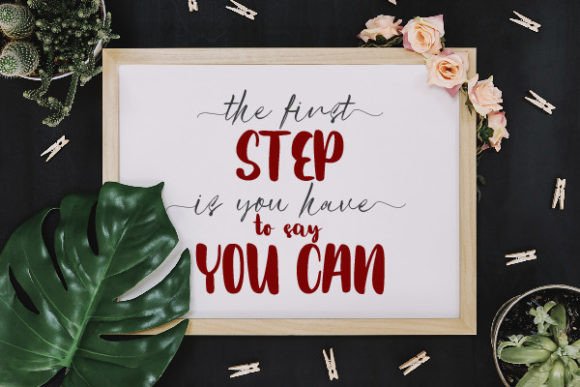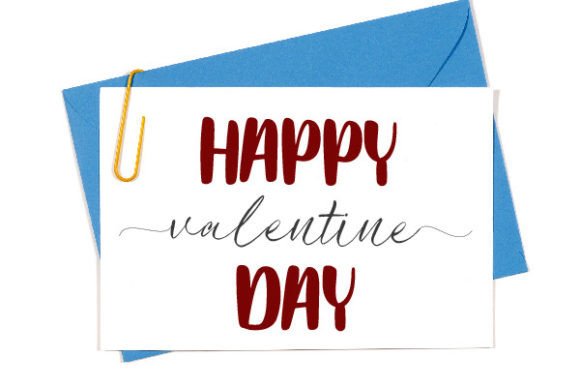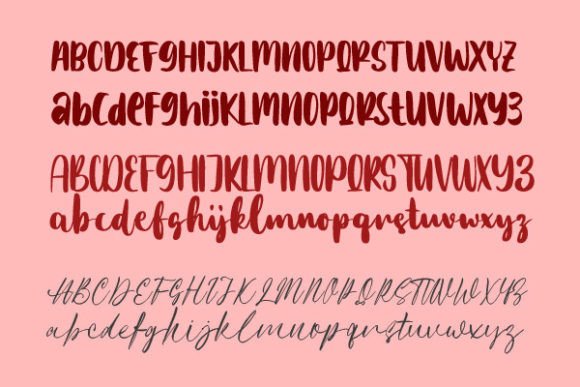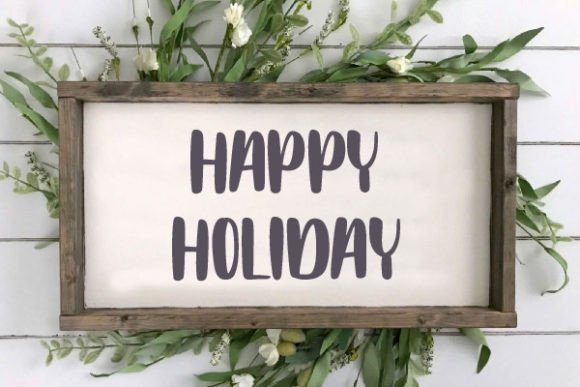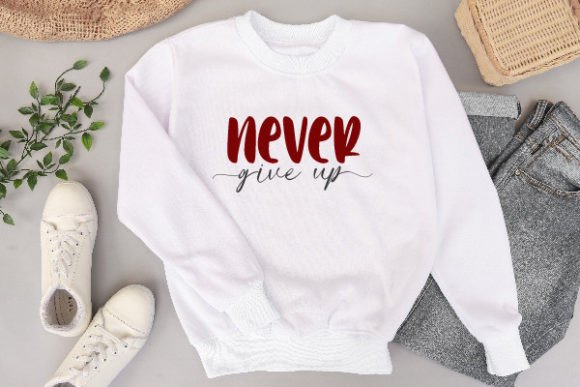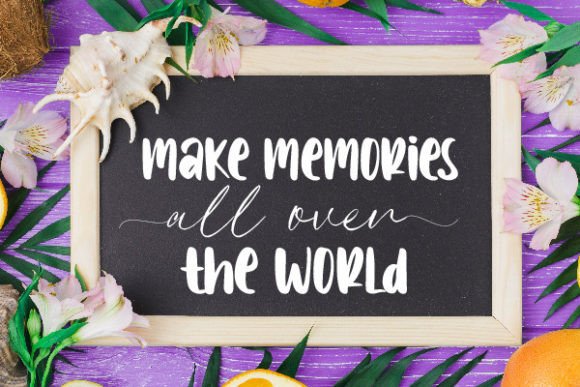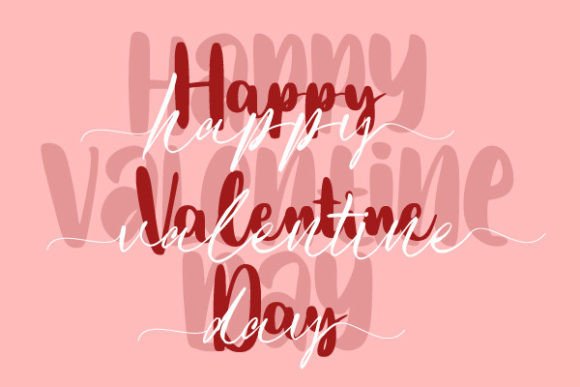
Happy Valentine Day Font: The Perfect Choice for Romantic Messages
Are you looking for a font that captures the essence of love and romance? Look no further than the Happy Valentine Day Font. This beautiful handwritten font is designed to add a touch of elegance and playfulness to your text, making it perfect for special occasions and romantic messages.
What Makes Happy Valentine Day Font So Special?
Happy Valentine Day Font is a stunning example of a handwritten font with an elegant, yet playful feel. Its soft curves and gentle strokes give it a lovely, romantic look that is sure to leave a lasting impression on any text. Whether you’re a designer, crafter, or simply someone who loves to express themselves through creative writing, this font is sure to become a favorite.
Key Features of Happy Valentine Day Font
- Elegant and Playful Feel: Happy Valentine Day Font has a unique blend of elegance and playfulness, making it perfect for a wide range of design projects.
- Soft Curves and Gentle Strokes: The font’s soft curves and gentle strokes give it a romantic and sophisticated look that’s sure to impress.
- Attractive and Graceful Look: The font’s attractive and graceful look makes it perfect for special occasions and romantic messages.
- Perfect for Designers and Crafters: Happy Valentine Day Font is a versatile font that can be used by designers and crafters for a wide range of projects, from Valentine’s Day cards to wedding invitations.
- Valentine’s Day Cards: Create beautiful and romantic Valentine’s Day cards with Happy Valentine Day Font.
- Wedding Invitations: Use the font to create stunning wedding invitations that will leave a lasting impression on your guests.
- Social Media Graphics: Add a touch of romance to your social media graphics with Happy Valentine Day Font.
- Digital Art: Use the font to create beautiful digital art pieces that showcase your creativity.
Tips for Using Happy Valentine Day Font
Here are a few tips for using Happy Valentine Day Font:
- Pair it with Other Fonts: Experiment with pairing Happy Valentine Day Font with other fonts to create a unique and interesting look.
- Use it for Headlines: Use the font for headlines and titles to add a touch of elegance and sophistication.
- Experiment with Colors: Experiment with different colors to find the perfect combination that complements the font.
Happy Valentine Day Font is a beautiful and romantic font that’s perfect for designers and crafters. Its elegant and playful feel, soft curves, and gentle strokes make it a stunning addition to any design project. Whether you’re creating Valentine’s Day cards, wedding invitations, or social media graphics, this font is sure to leave a lasting impression. So why wait? Download Happy Valentine Day Font today and add a touch of romance to your designs.
With its attractive and graceful look, Happy Valentine Day Font is sure to become a favorite among designers and crafters. Its versatility and ease of use make it perfect for a wide range of design projects. So go ahead, get creative, and show the world what you’re working with.